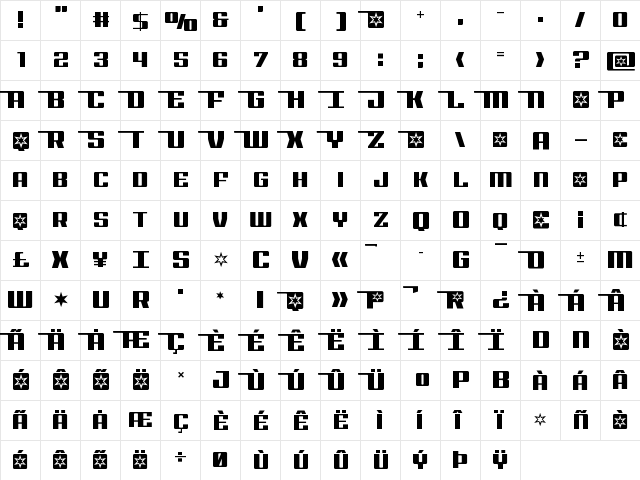
Rocket Pop Straight Regular
Design Context for Rocket Pop Straight Typeface
Rocket Pop Straight is a composed and adaptable typeface that performs quietly and consistently across a wide range of design contexts.